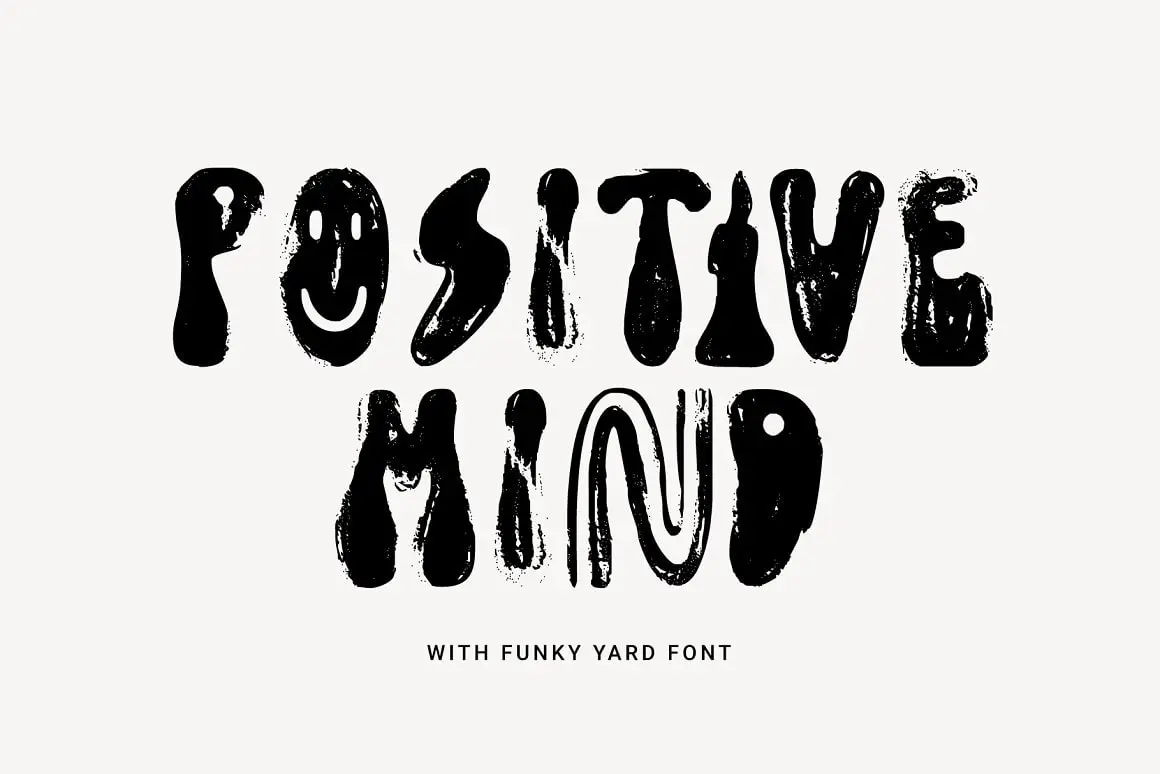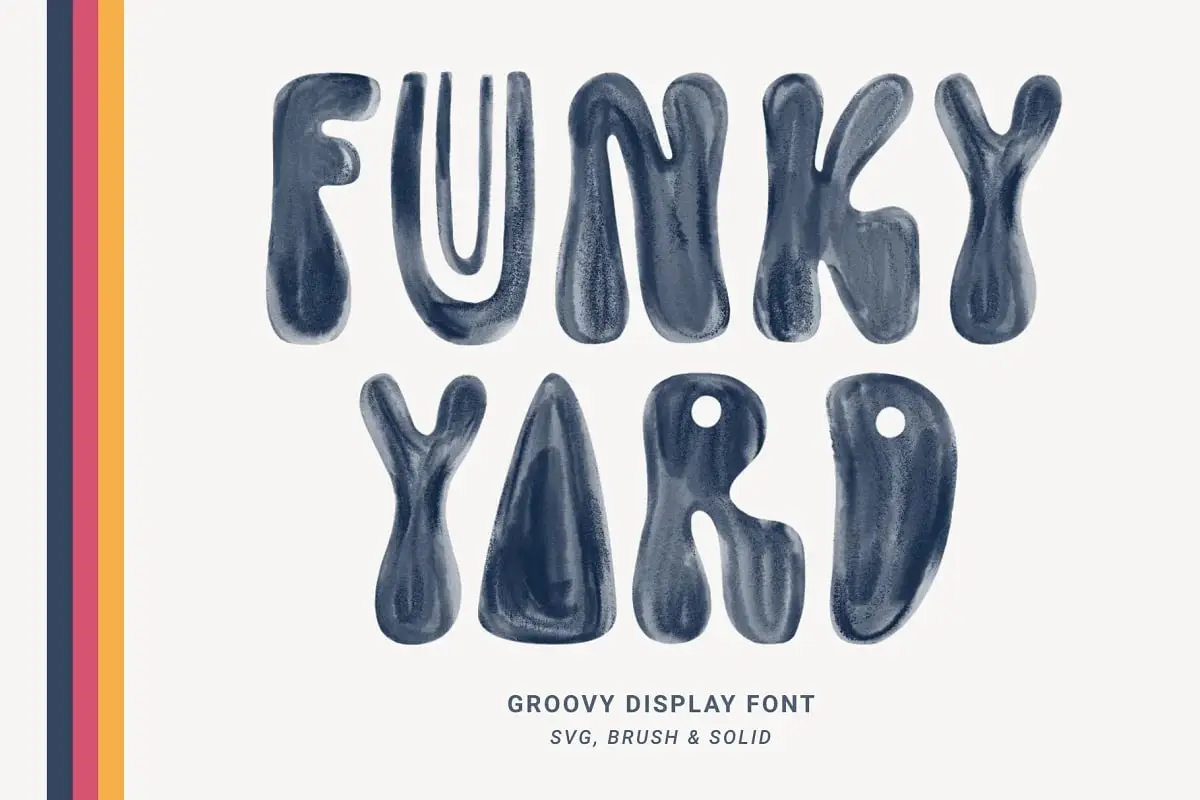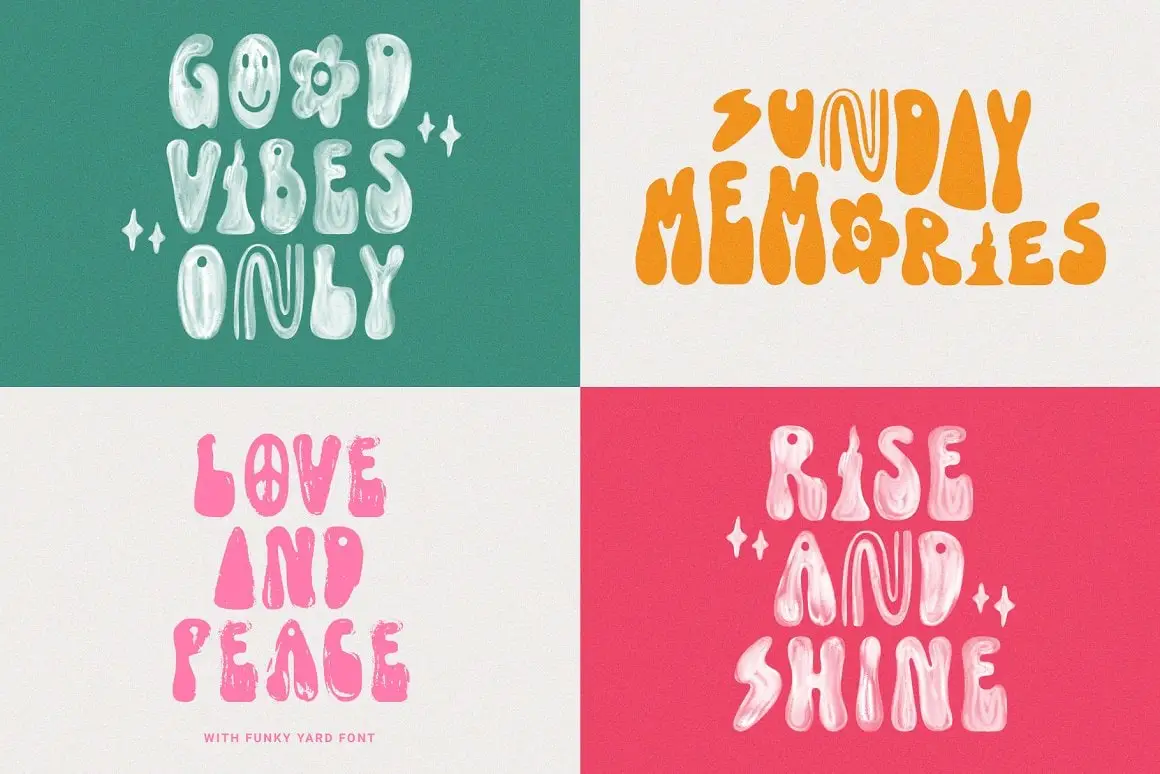
Funky Yard-Svg Groovy Font + Extra — By Prioritype Co
Introducing the Funky Yard-Svg Groovy Font, a vibrant and playful typeface designed to bring a touch of fun to your projects. This font features a unique, groovy style that is perfect for a variety of applications, including branding, logos, web design, and print materials.
• Stylish and playful design
• Easy to customize for various projects
Utilize this font for eye-catching headlines, social media graphics, or any project that requires a lively and engaging touch.